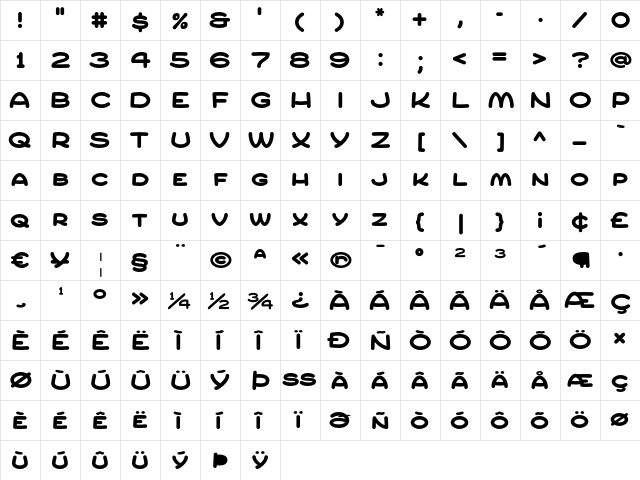
Compur Bold Font Preview
Compur Bold
Compur Bold Font Details
Design Context for Compur Typeface
Compur is a composed and adaptable typeface that performs quietly and consistently across a wide range of design contexts. Its bold stroke weight gives it real presence on the page.